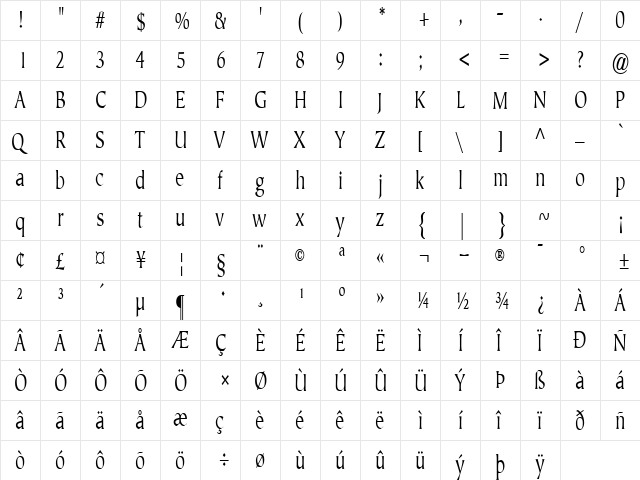
JusticeSystemCondensed Regular
Design Context for JusticeSystemCondensed Typeface
JusticeSystemCondensed takes a measured approach to typography — its balanced proportions and neutral character make it a reliable workhorse for both digital and print work. The condensed width makes it efficient for tight spaces without sacrificing legibility.